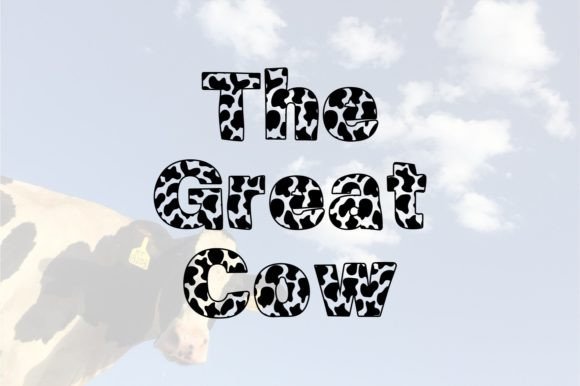
Embark on a whimsical voyage with The Great Cow Font, a delightful and playful display font that sparks joy and captivates imaginations. Inspired by the charm of the bovine world, this decorative font features a captivating cow pattern that adds a touch of whimsy and cheer to any creative project.
Whether you're a teacher seeking to liven up classroom decorations, a student looking for a unique touch in school projects, or a designer searching for a font that exudes fun and playfulness, The Great Cow Font stands ready to elevate your creations. Its versatility shines through, adapting seamlessly to a wide range of applications, from greeting cards and invitations to branding and social media graphics.
Unleash your creativity and let The Great Cow Font transport you to a world of imagination and delight. Its charming cow pattern sparks smiles and creates a sense of wonder, making it the perfect choice for projects that aim to engage and entertain. Embark on this creative adventure today and discover the boundless possibilities that await.